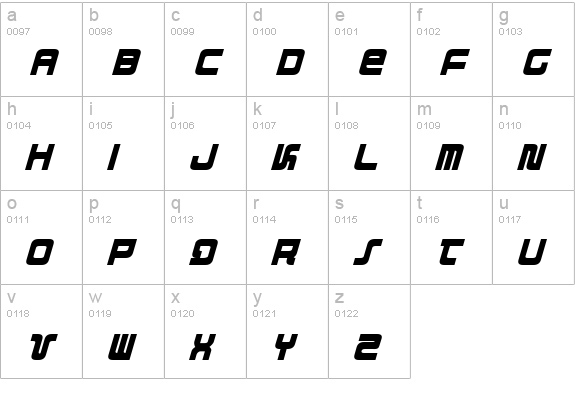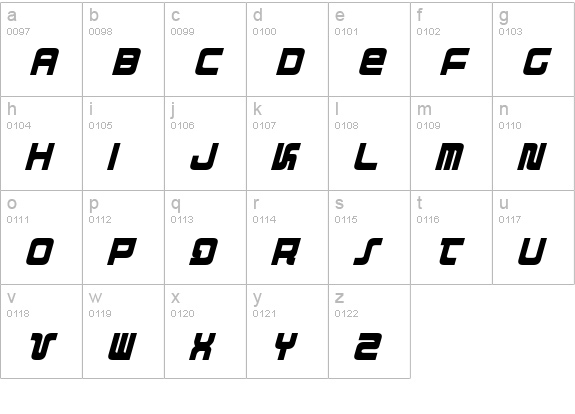
Direktor Condensed Italic is a distinctive, condensed-width, italic variant in the Direktor typeface family \xE2\x80\x94 well suited to design and typography projects.
Direktor Condensed Italic font is a sleek and modern typeface designed for a contemporary aesthetic. The italicized version of this font adds a touch of elegance and sophistication to any design project. With its condensed form, Direktor is perfect for creating eye-catching headings, titles, and branding materials. This versatile font strikes the perfect balance between professionalism and creativity, making it suitable for a wide range of applications including logos, posters, websites, and more. The sleek lines and subtle curves of Direktor Condensed Italic add a sense of style and flair to any project. Best of all, Direktor Condensed Italic font is completely free to download at FontsMarket.com. Whether you're a professional designer or a hobbyist looking to enhance your creative projects, this font is a valuable addition to your font library. Download Direktor Condensed Italic today and elevate your designs with its unique and stylish look.